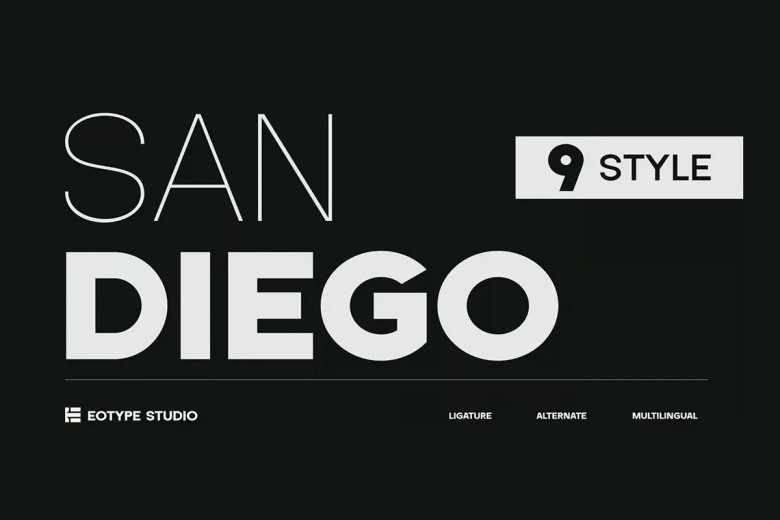
San Diego Font Family from Eotype Studio is an innovative Modern sans serif font with nine styles. Each font’s shape is defined by an organic geometric outline; therefore making San Diego font suitable for various projects such as posters, logos, branding or signage.
San Diego Sans Serif Font Family